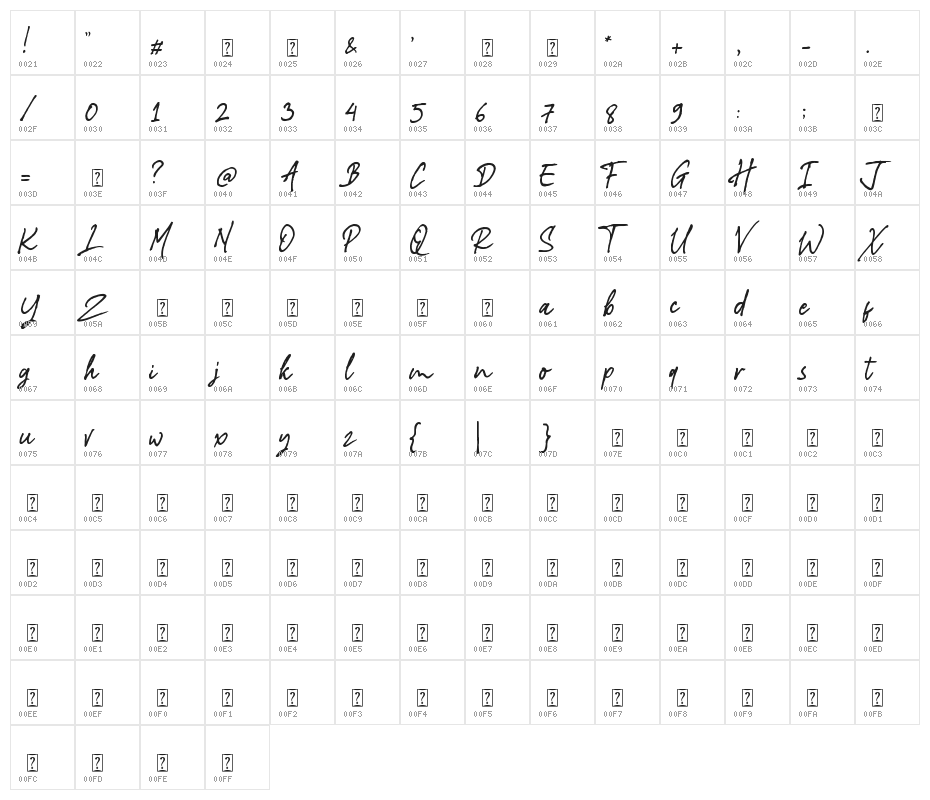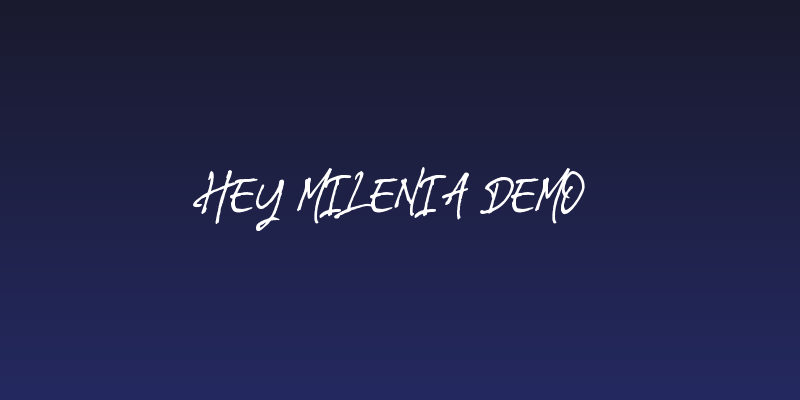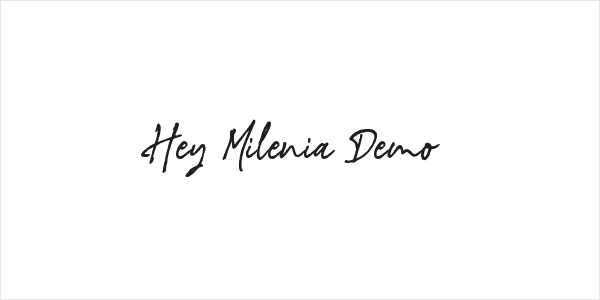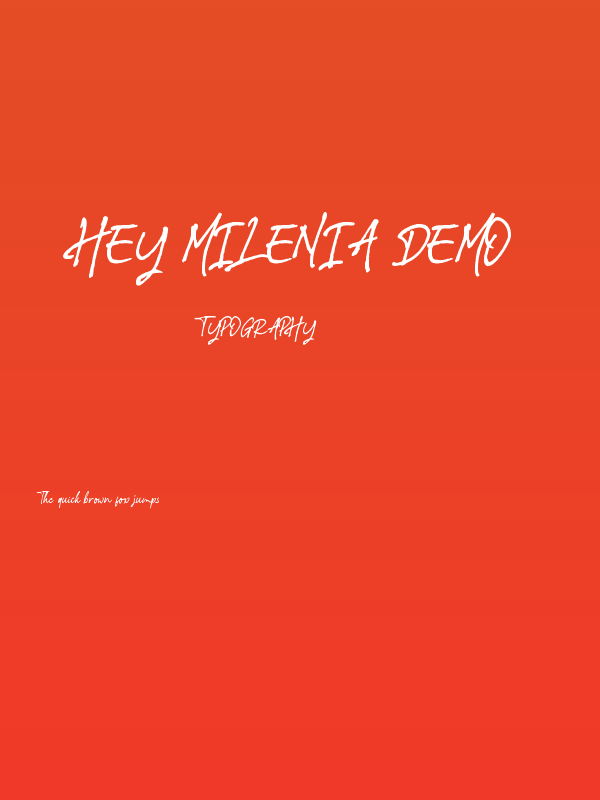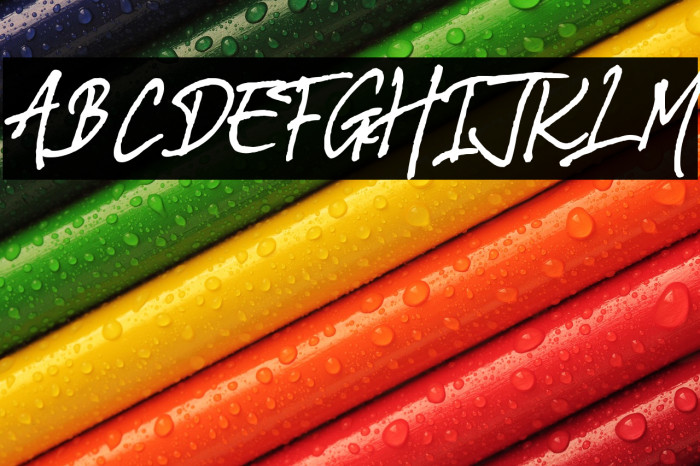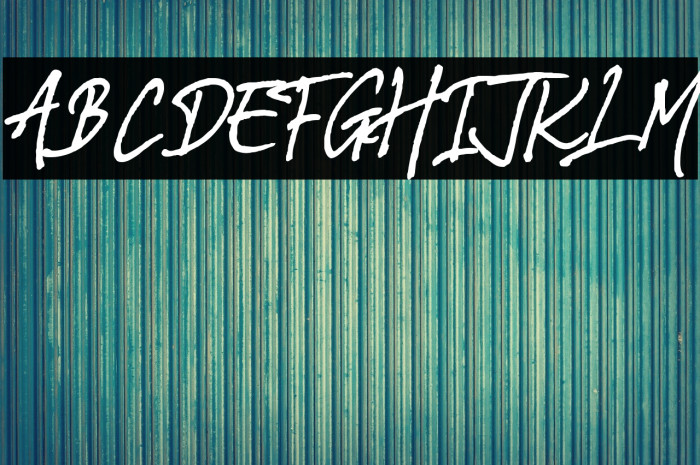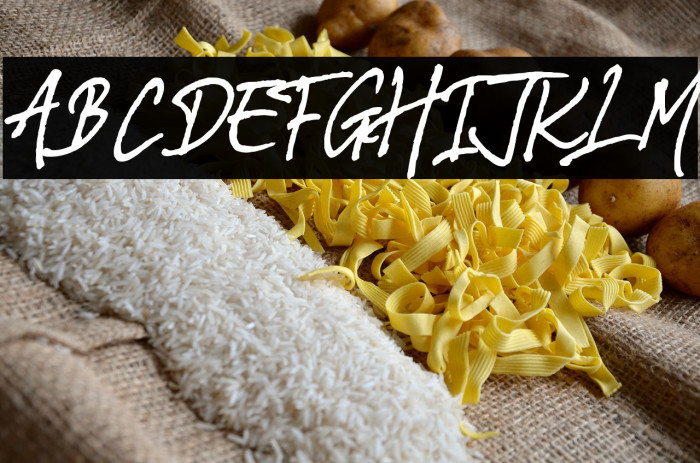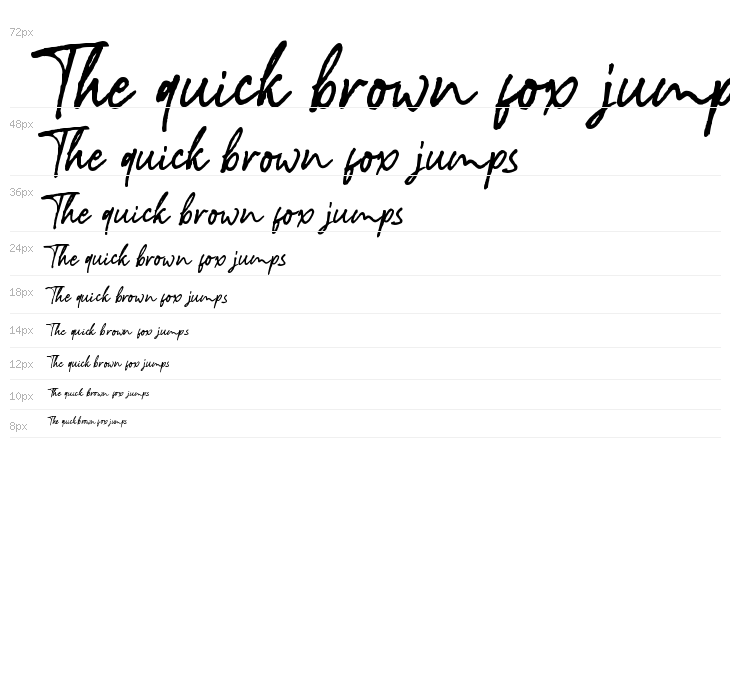
Hey Milenia Demo Font
Hey Milenia Demo Description
This font exudes a dynamic and expressive style, characterized by its fluid, cursive script that mimics natural handwriting. The letters are connected, creating a seamless flow that adds a personal touch to any text. The uppercase letters are bold and slightly slanted, while the lowercase letters maintain a consistent rhythm with elegant loops and curves. The numerals are distinct yet harmonize well with the overall script style. Special characters are thoughtfully integrated, maintaining the handwritten aesthetic. This font is perfect for projects that require a personal, artistic flair, such as invitations, greeting cards, or branding materials.